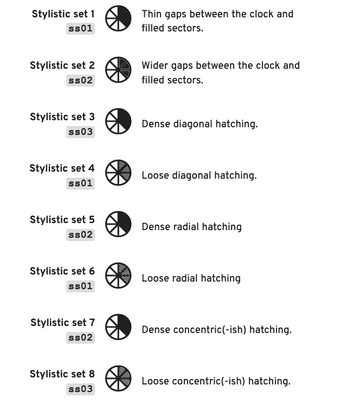
Typeface: timeToPlay
timeToPlay is a set of icon fonts for turning fractions into countdown/progress clocks for TTRPGs, including making Powered-by-the-Apocalypse style clocks! It includes 10 styles of clock with 1, 2, 3, 4, 6, 8, and 12 sectors, plus different styles of fill, like block, bordered, and hatched. See the font guide (in the Demo section) for more info. Demo You can grab the Basic style in the Demo section below! What's the License? timeToPlay fonts are free to use in personal or commercial projects (e.g. .pdfs, .epubs, apps, websites, printed products). More fonts! Here are some of the other typefaces I've made—find more details on their itch pages, and more fonts and other tools and assets in my Fonts and Typefaces collection!